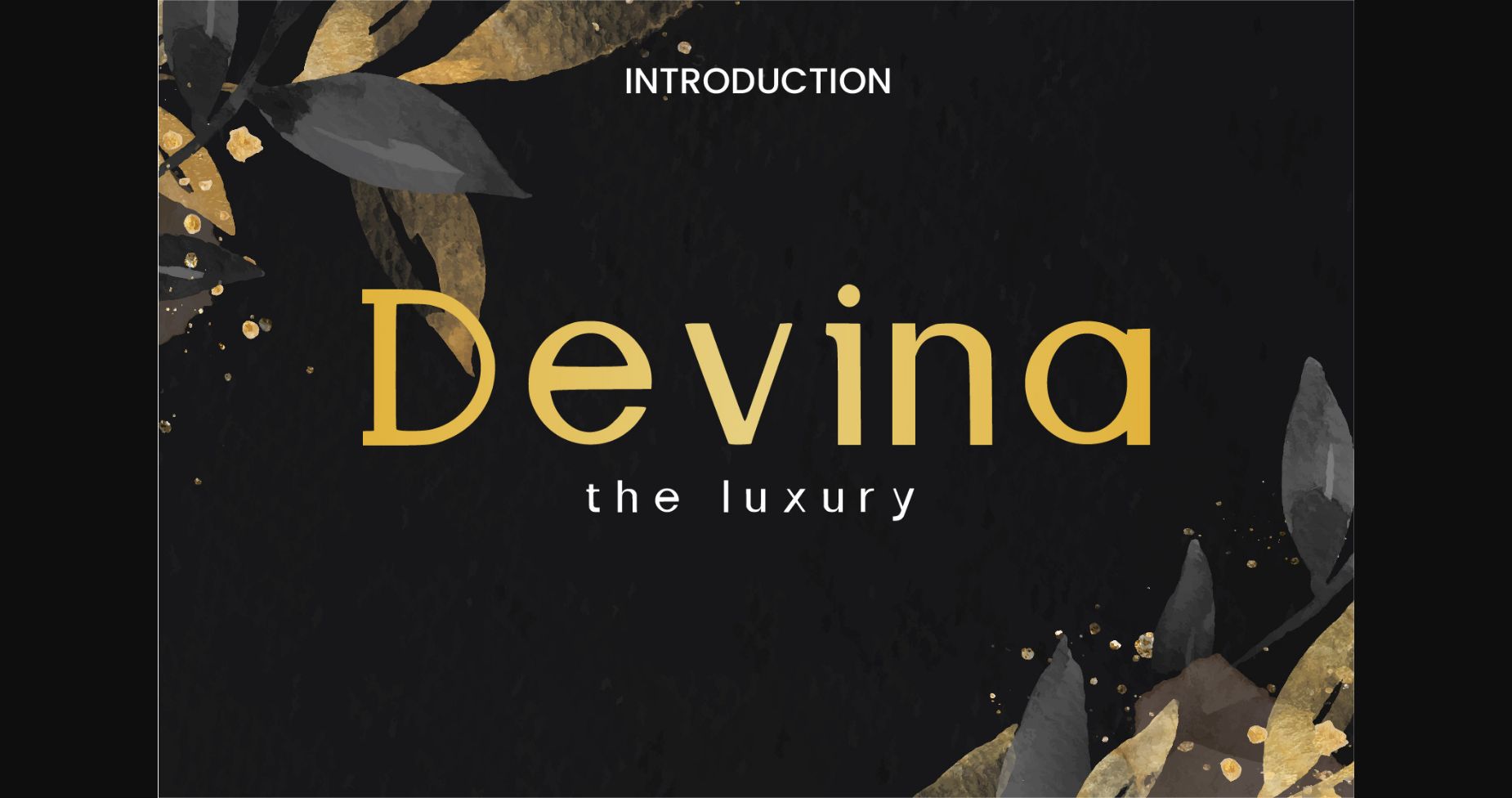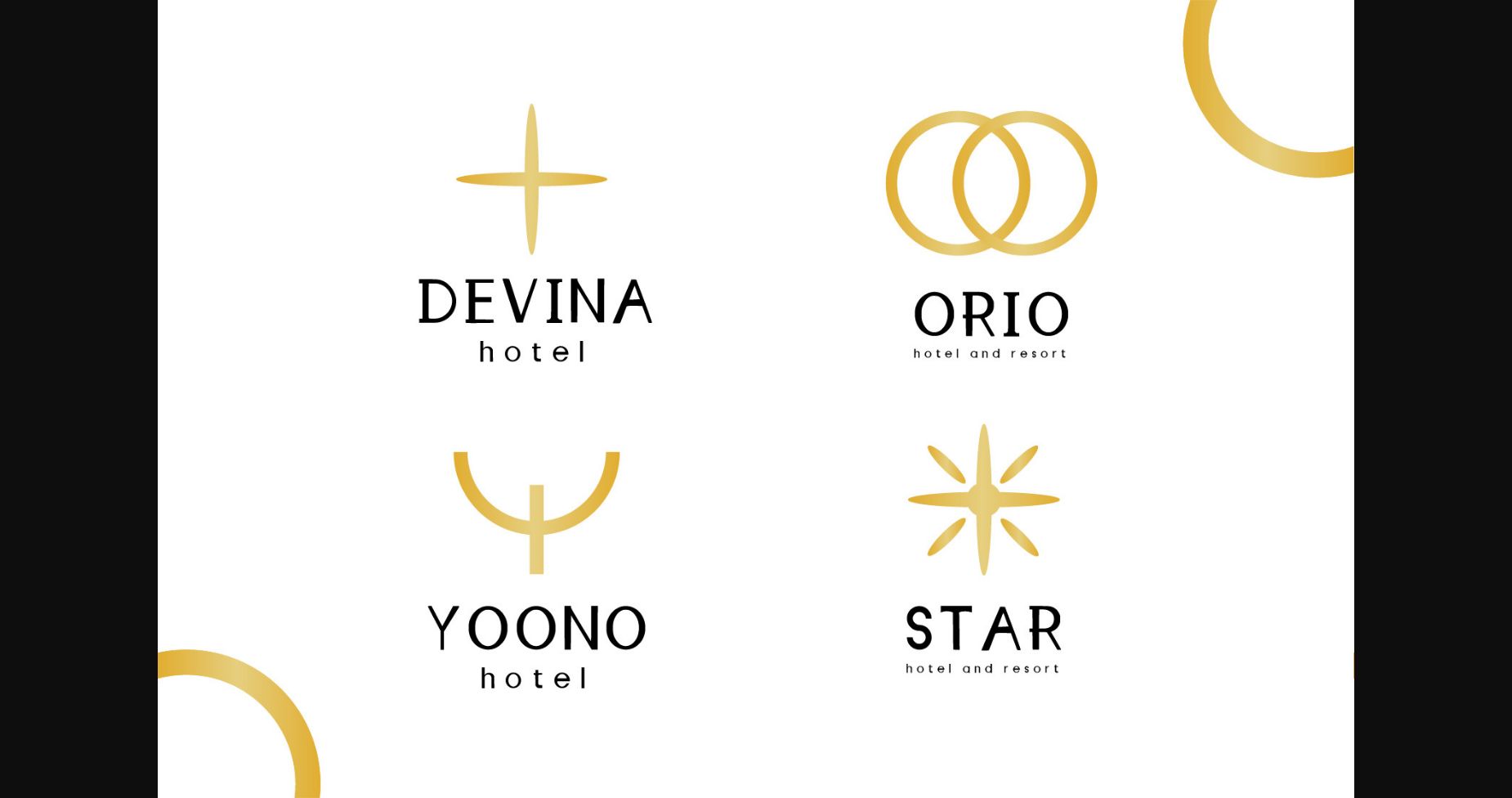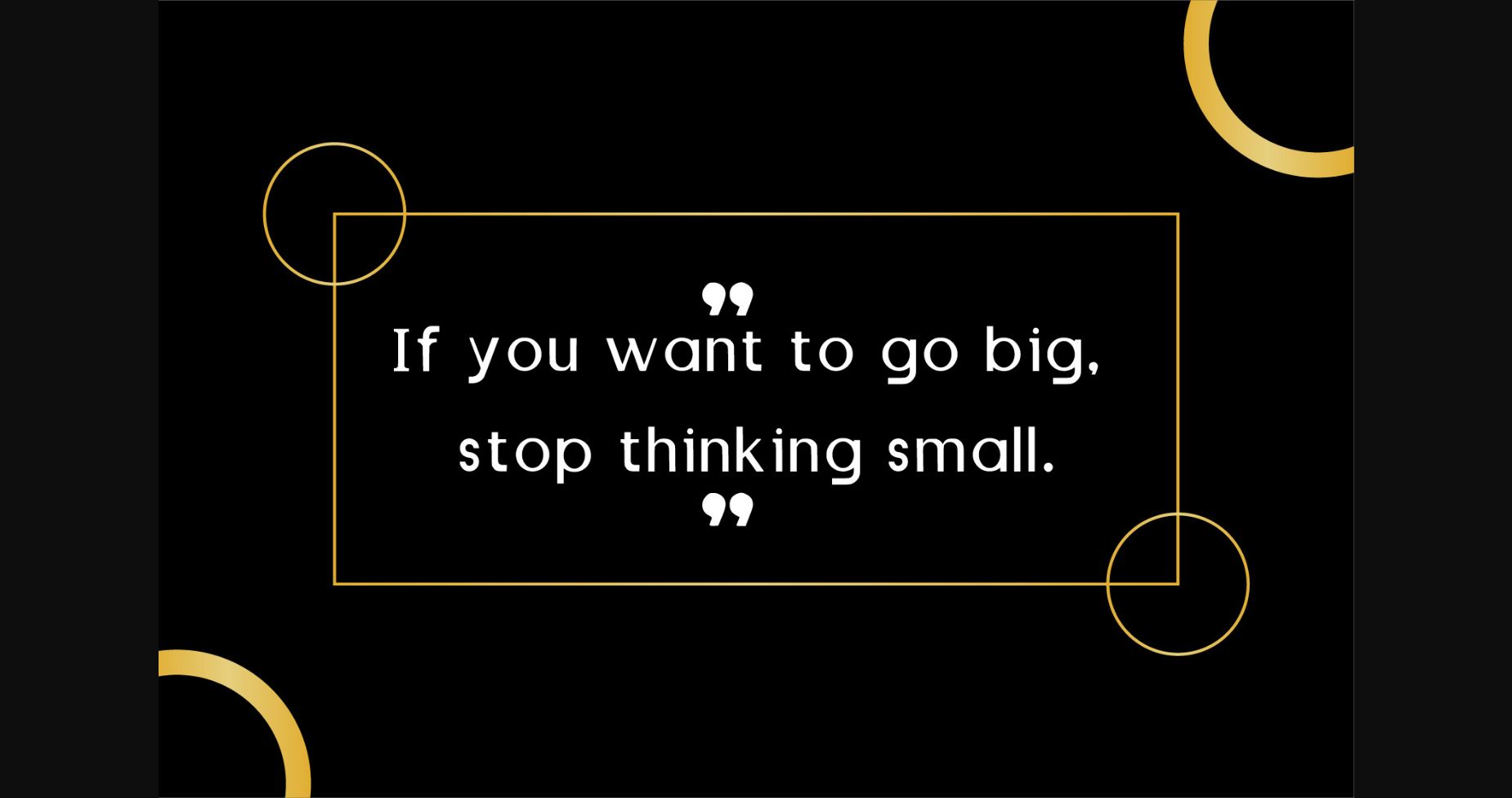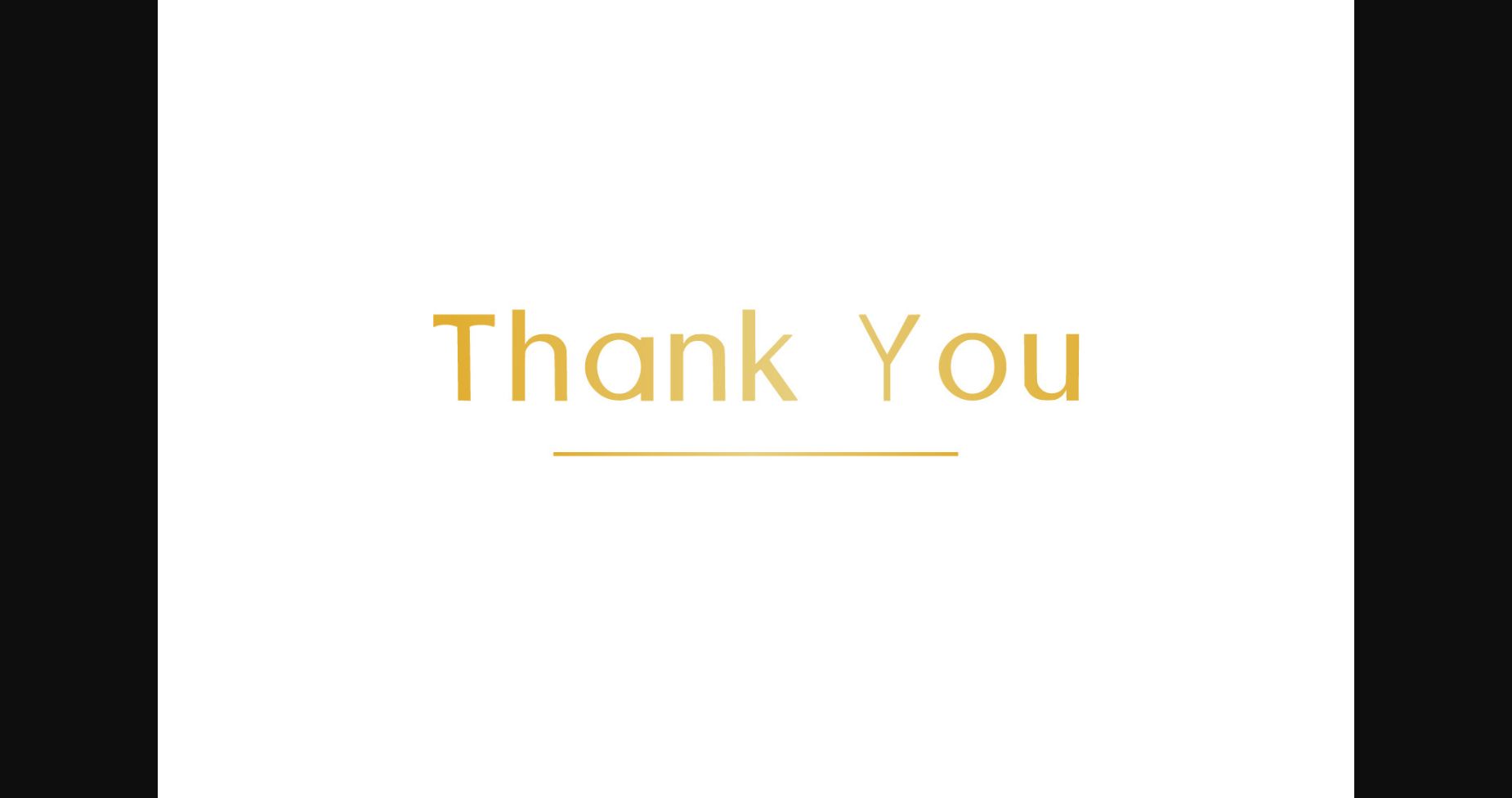
Devina Font
About Devina Font
Devina is a luxurious sans serif font, featuring a sumptuous and modern flow. It looks beautiful on invitations, thank you cards, quotes, greeting cards, logos, business cards and any other design that requires a touch of elegance.